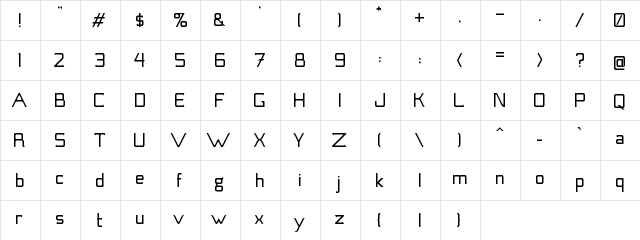
meniscus Regular
| Designer | timichango |
meniscus offers clean, dependable letterforms without strong stylistic allegiance, making it a practical choice for designers who need flexibility.